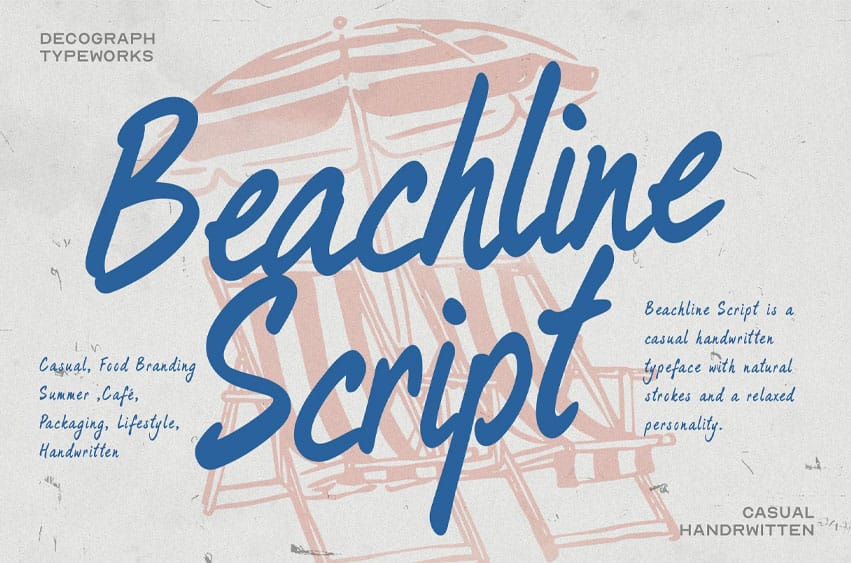
Beachline Script Font
Beachline Script Font Casual Summer Font is a relaxed handwritten typeface with smooth strokes and natural flowing movement. Its casual script style creates a warm, friendly, and easygoing personality inspired by sunny days, beach moments, and lifestyle branding.
** Best Used For:** Summer Branding
• Cafe Menus
• Food Packaging
• Restaurant Logos
• Beach Posters
• Travel Promotions
• Lifestyle Branding
• Social Media Graphics
• Smooth Handwritten Flow
• Casual Script Style